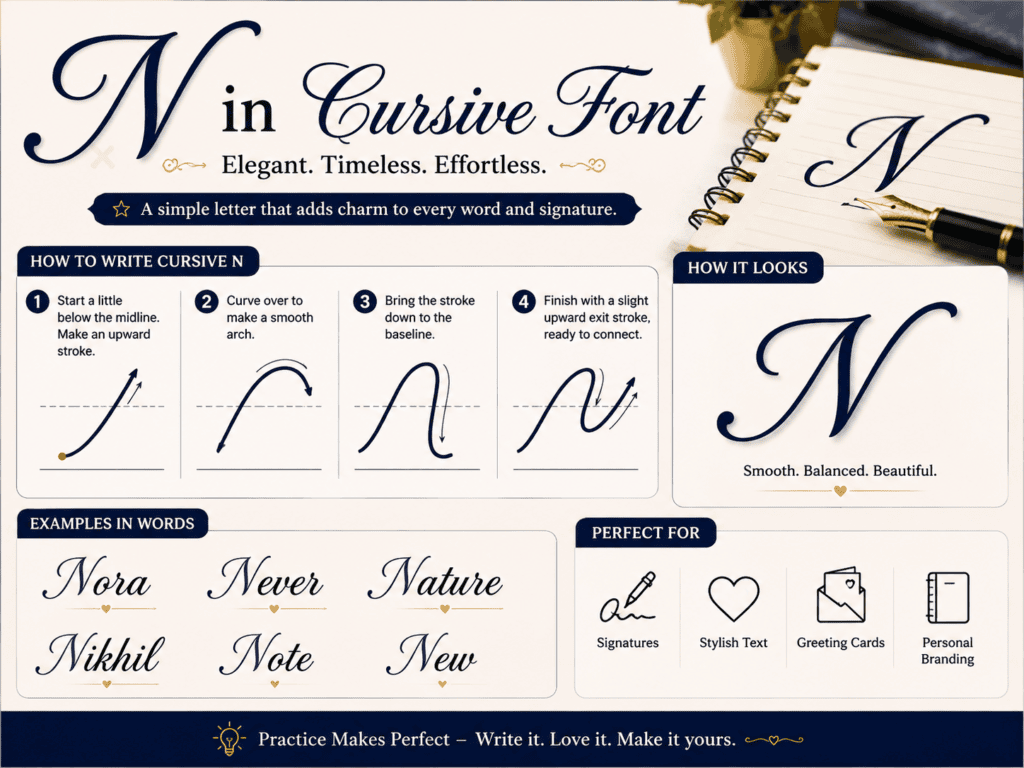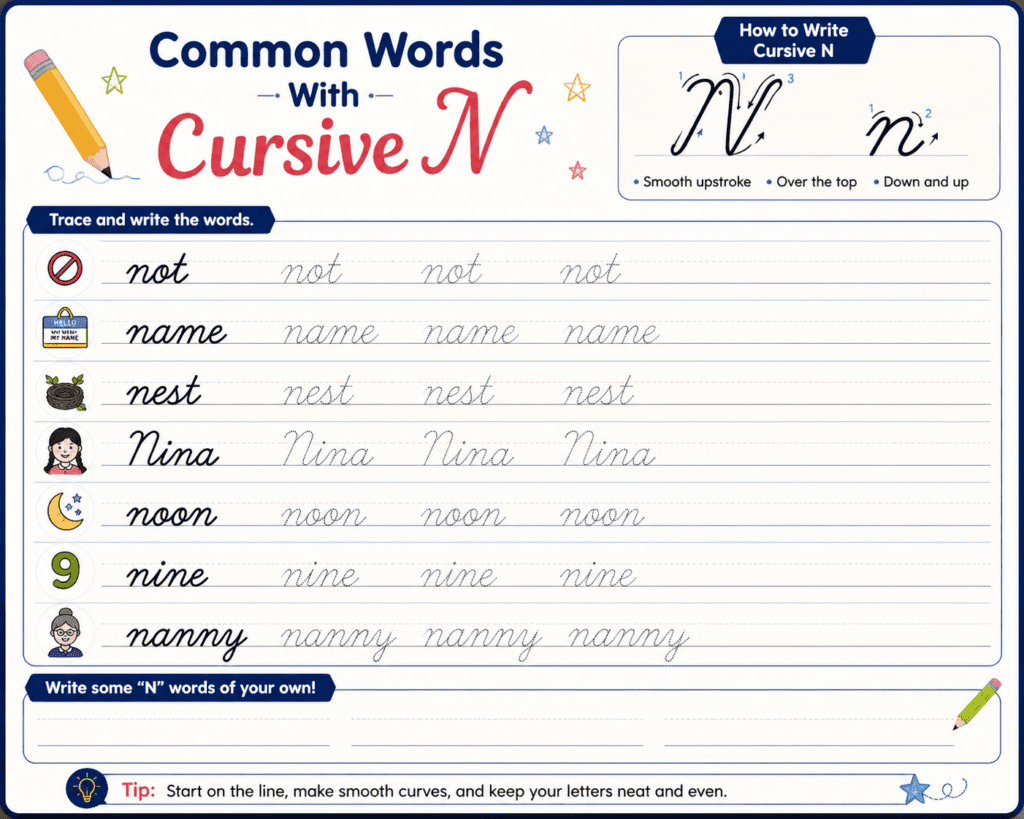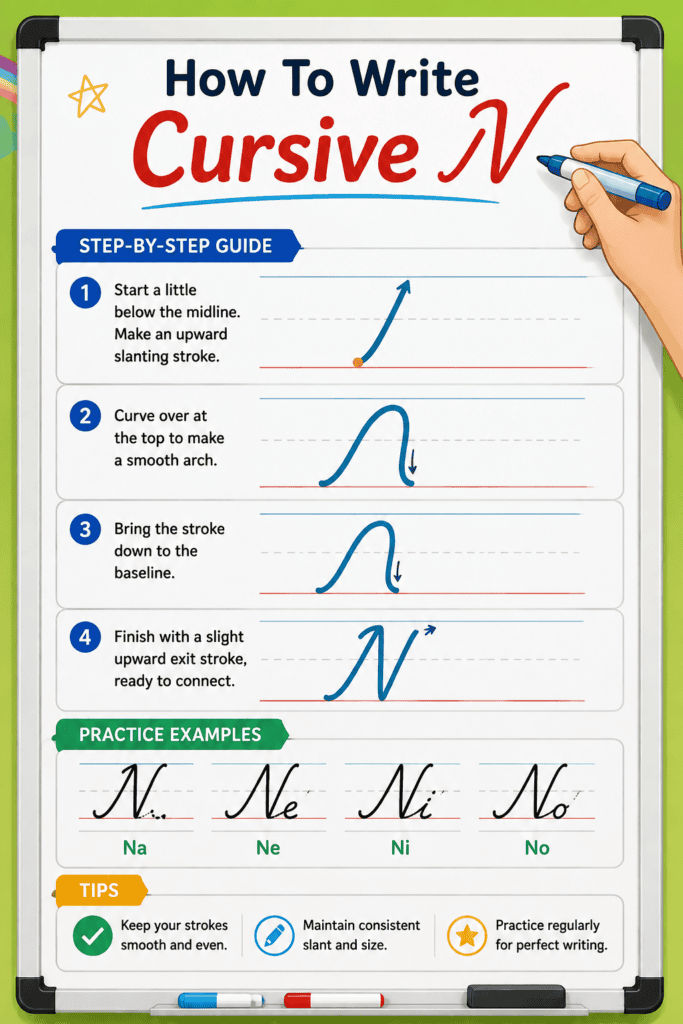
Most learners expect a cursive n to be simple, yet its identity depends on rhythm: a smooth upward stroke, measured arch, and confident return to the baseline create readability without making the letter feel mechanical.
In practice, I find consistent x-height matters more than decorative flair. Whether copied as Unicode text or handwritten, the lowercase character should connect naturally, display clearly, and preserve its gentle hump across names and signatures.
How To Write Cursive N: Step-By-Step Guide
From my handwriting practice, a lowercase cursive N starts on the baseline, rises with a light upstroke, drops smoothly, then forms one rounded shoulder before connecting naturally to the next letters without lifting the pen.
For capital N, the line begins with a confident entry stroke, builds the taller form, and keeps both sides balanced. I compare regular script examples, then repeat strokes until the shape looks elegant and consistent.
Copy Cursive N Symbols
From practical testing, 𝓷 feels softer in bios and captions, while 𝓃 stays cleaner for usernames. For a stronger visual accent, 𝓝 or 𝒩 can make initials, monograms, and short names feel more deliberate online.
Instead of chasing one “perfect” form, copy several symbols, paste them into the app, and test how each character renders. I usually keep the lighter version for personal profiles and the bolder option for posts.
Understanding Cursive N
From practice, I read 𝓷 less as decoration and more as controlled movement: a natural curve begins the start, drops down, forms a small bump, then keeps connecting without disturbing baseline alignment or consistent height.
Students often assume an inverted u is enough, yet a well-formed lowercase n needs medium-width arches, balanced slopes, and a rounder, compact profile; on lined paper, I check the end before copying digitally for clarity.
Characteristics Of Cursive N
Unlike printed forms, cursive N gains identity through a flowing entry stroke, arches, and a balanced exit. In my writing practice, the letter looks most natural when each curve connects without becoming wide or flat.
A lowercase form is neither too tall nor narrow; its rhythm stays beside e, i, o, or g. In display work, a heavier capital can stand out beautifully across monograms, cards, labels, and logo designs.
Cursive N Style Comparison
From practice, 𝓃 feels faster and more handwritten, while 𝓝 creates a bold, formal presence. The lowercase form suits connected words; the capital version works better for a monogram, initials, or a standout title design.
Style choice should follow use, not decoration alone: compact forms remain easy in captions and messages, whereas extended strokes appear stronger in a tattoo or embroidery pattern. Always test rendering across each device and platform.
Cursive N Copy Paste, Writing Practice, And Search Intent
Many users simply copy a beautiful cursive N from a generator, but practice reveals whether the characters stay readable across Instagram, TikTok, Discord, and WhatsApp. I test each symbol before saving a final public name.
Search intent is broader than instant styling: people want free, copy-paste characters, sheets, or a pro tip for forming lowercase and capital N. In my experience, repeated strokes build a foundation that shortcuts never match.
Common Words With Cursive N
In classroom practice, I often begin with Natalie, Nathan, Nora, Noah, and Nicole because familiar names make each cursive name easier to recognize, connect, and reproduce across personal notes, labels, invitations, and daily handwriting exercises.
Beyond names, learners improve fastest by tracing common words such as “new,” “normal,” and “novelty,” then using them in a short message. This routine strengthens rhythm, spacing, and confidence without turning practice into repetitive drills.
Popular Names Starting With N
From lettering practice, I notice Nathan, Nicole, and Noah feel especially balanced in cursive because their rounded beginnings support smooth joins. These popular choices suit wedding cards, personalized quotes, and elegant hand-lettered keepsakes for celebrations.
Contrary to choosing by popularity alone, test each name using large sizing beforehand. Even one single capital can define the style, while bold strokes make nicknames more readable across an Instagram bio or Facebook profile.
Where To Use Cursive N
From my experience, choose cursive N for a title, headings, logo drafts, signature phrases, or a short description when designing invitations, profile names, commercial packaging, and pages needing one standout handwritten detail without visual clutter.
A generator can place the font instantly on the clipboard; test the result in each app, especially X, Twitter, and social profiles, because devices may render the same type differently before the final page appears.
From practice, the capital cursive N is a built uppercase form with a rising entry stroke, central downstroke, and looping exit. It is used for names, headings, or signatures, including decorative profiles while preserving focus.
Can I Use Cursive N In Instagram, TikTok, Or Discord Names?
Yes, you can use cursive N in Instagram, TikTok, or Discord names, but test visibility first. From experience, symbols look incredibly stylish yet display differently by server, device, or app, so copy and check status.